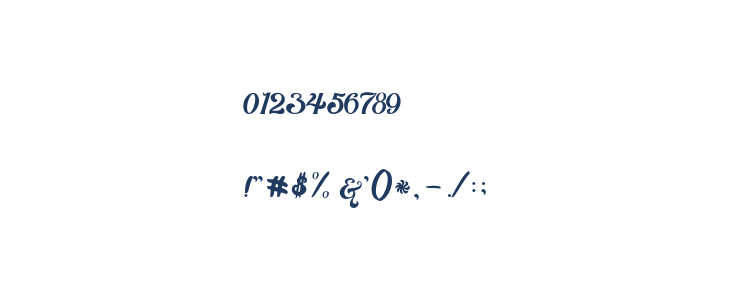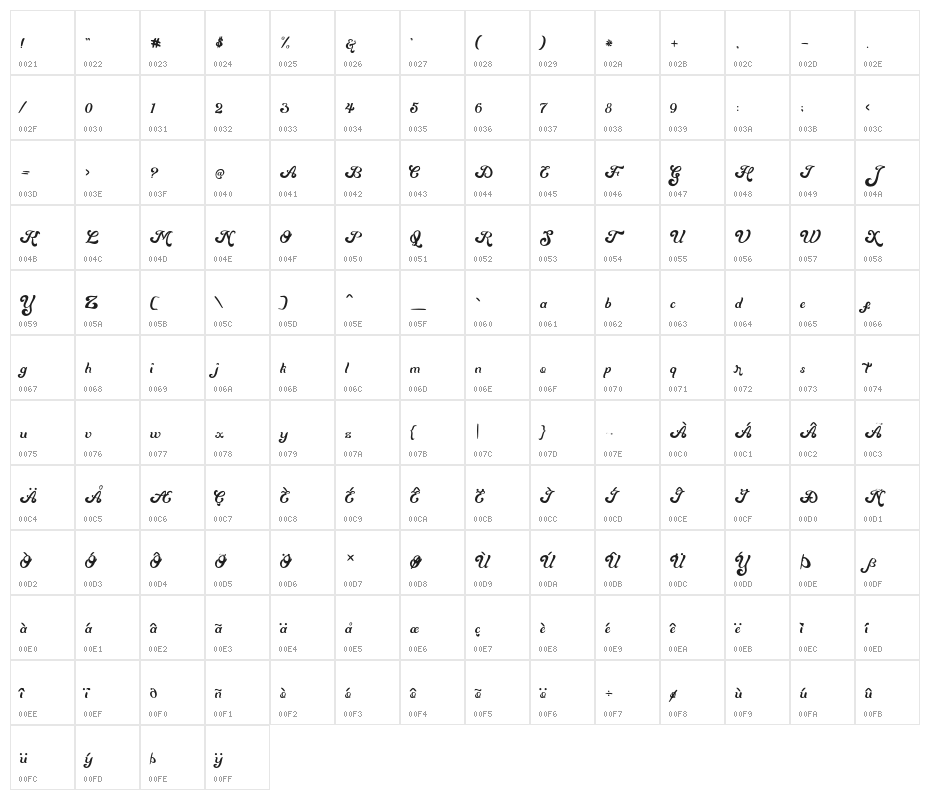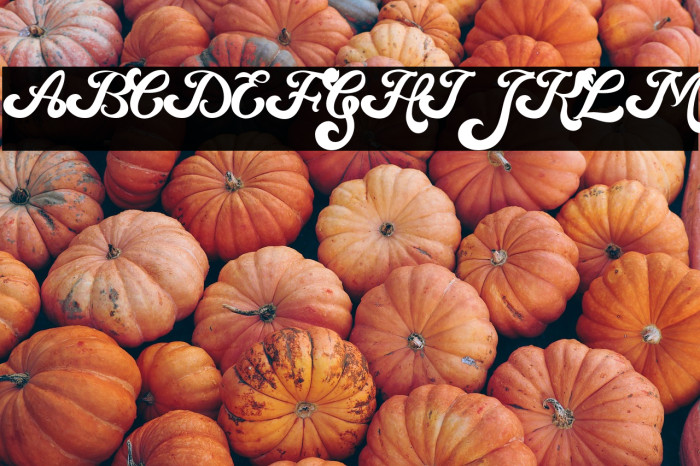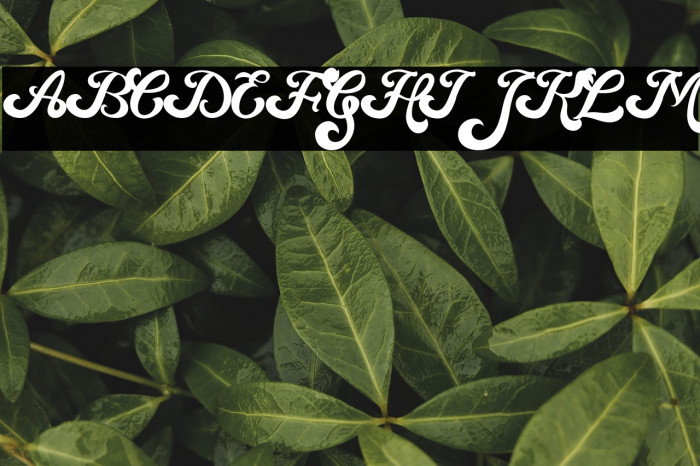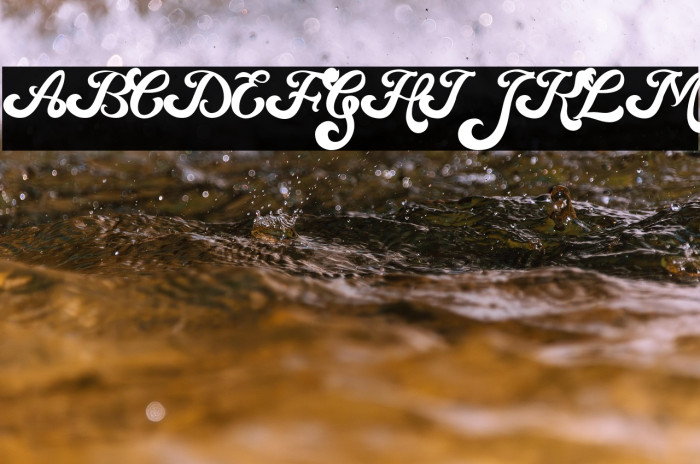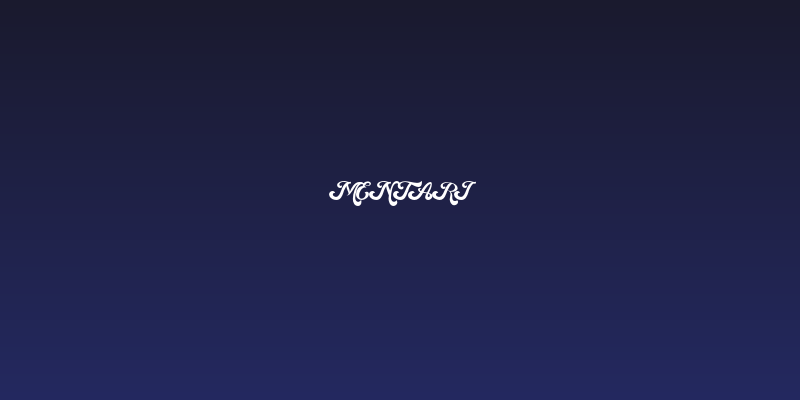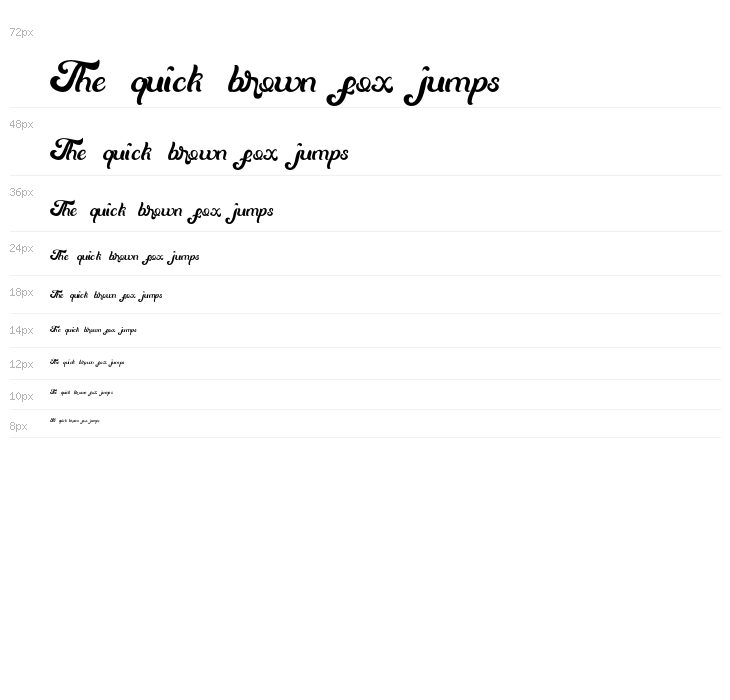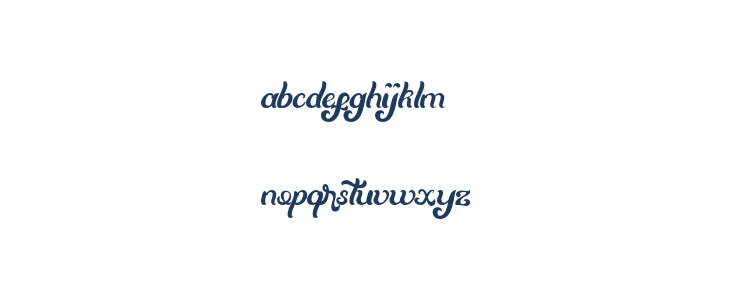
Mentari Font
Mentari Description
This font features an elegant and decorative script style with flowing, interconnected letters. The uppercase characters are ornate, with elaborate swirls and loops that add a touch of sophistication. The lowercase letters maintain a consistent style, offering a harmonious blend of curves and flourishes. Numbers and special characters are designed to match the overall aesthetic, making them suitable for artistic and creative projects. The font's unique style is ideal for capturing attention and adding a personal touch to any design.
| Use Case | Logos, Invitations, Decorative Text |
| Proposed Projects | Ideal for wedding invitations, greeting cards, logos, and branding materials where a touch of elegance is desired. |